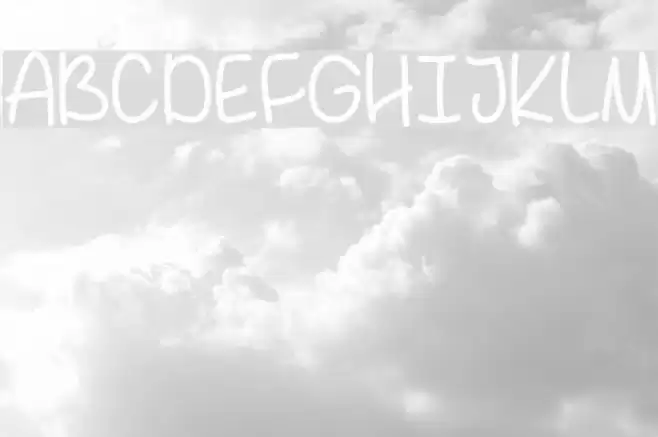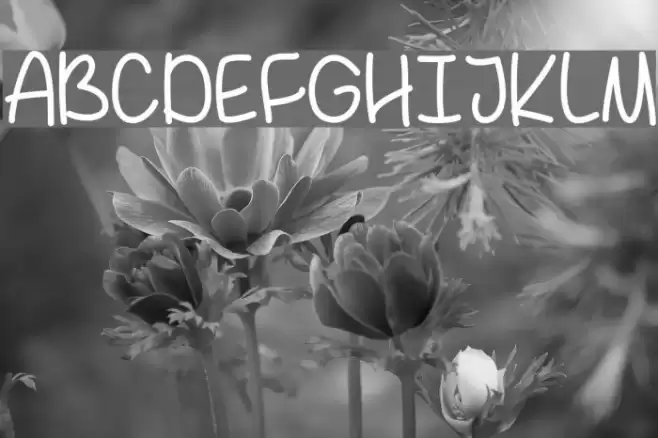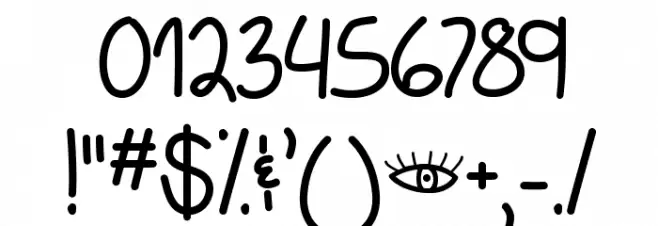
BehindBlueEyes Font
BehindBlueEyes Description
This playful and informal font features a handwritten style with rounded edges and a casual flow. The uppercase letters are bold and slightly uneven, giving a sense of spontaneity and creativity. The lowercase letters maintain a consistent style with a friendly and approachable appearance. Numbers are clear and legible, matching the overall playful theme. Special characters are creatively designed, adding a unique touch to the font. The overall design is perfect for projects that require a personal and informal touch, such as children's books, greeting cards, or casual branding.
A playful, handwritten font with a casual and friendly style from Uncategorized fonts.
- Proposed Projects: Ideal for children's books, greeting cards, casual branding, and playful designs.
- Overall Style: Casual, Playful
- Use Case: Headlines, Informal text, Creative projects